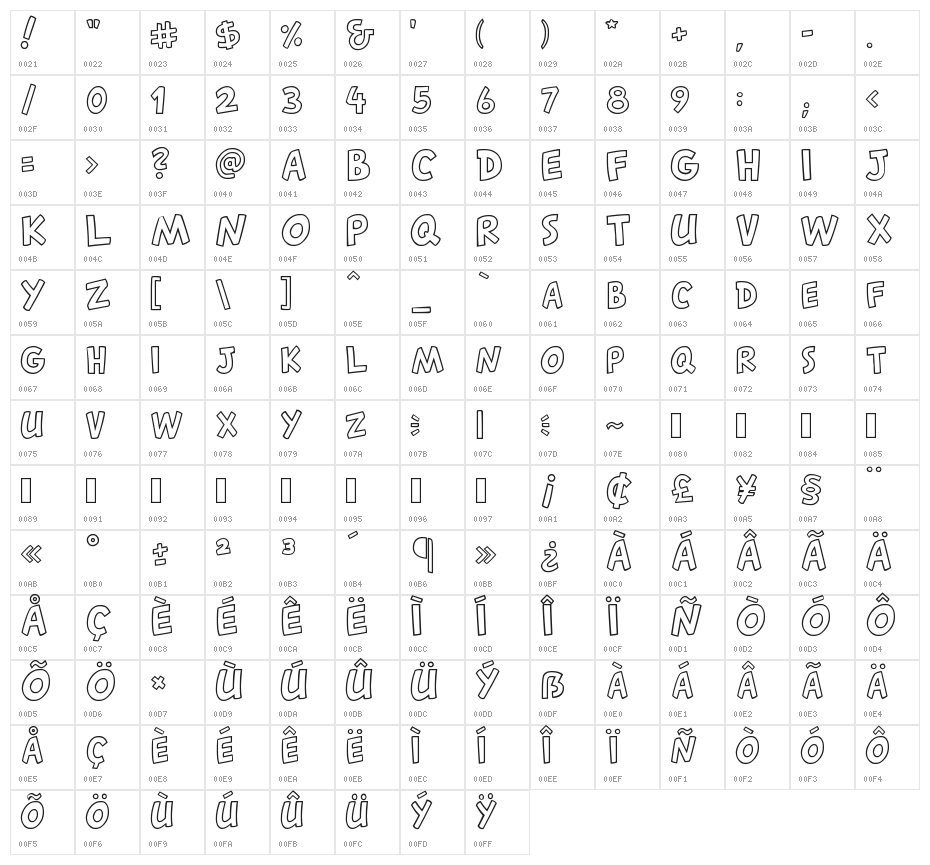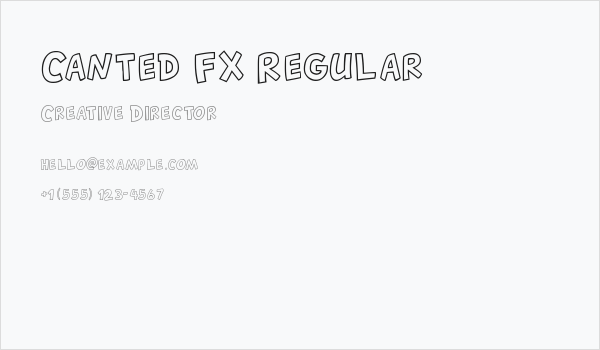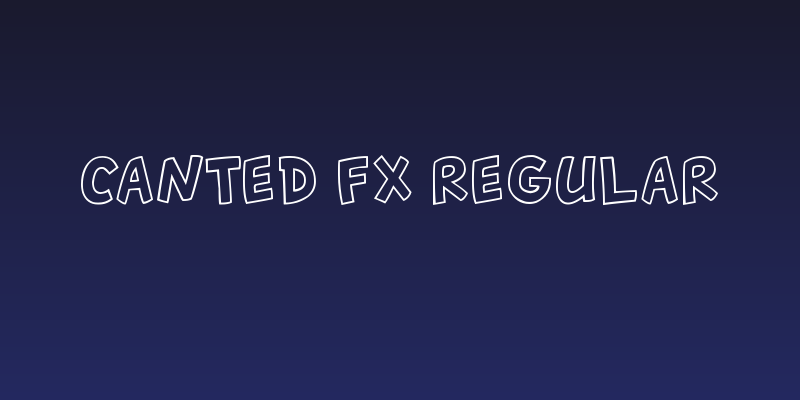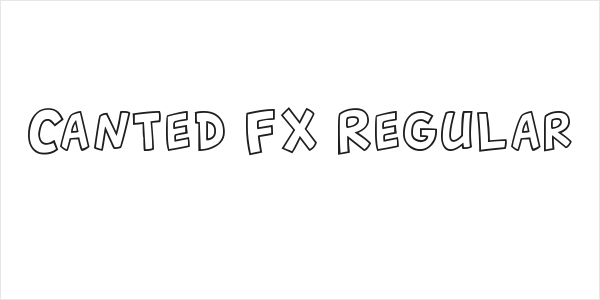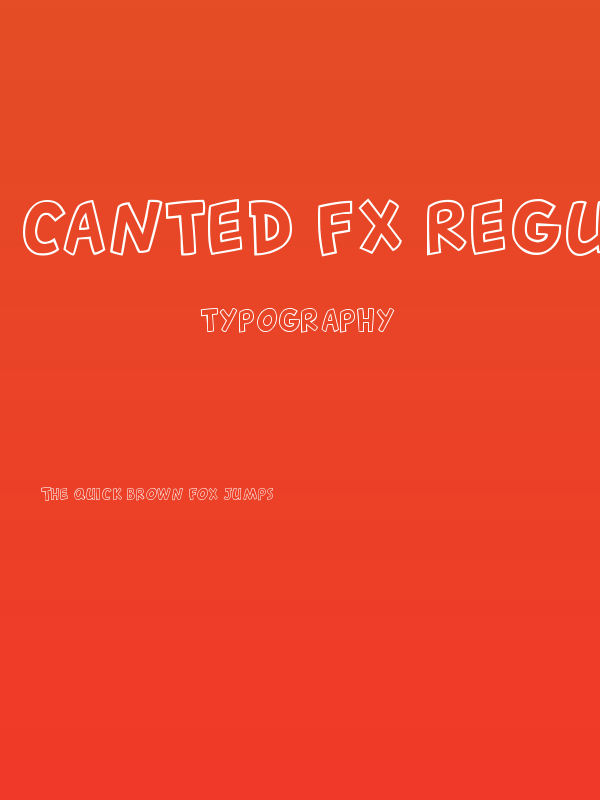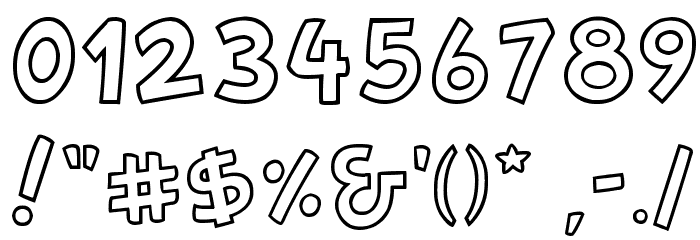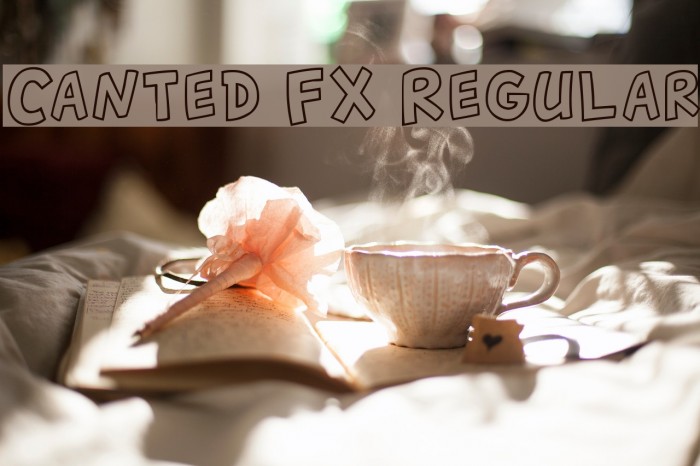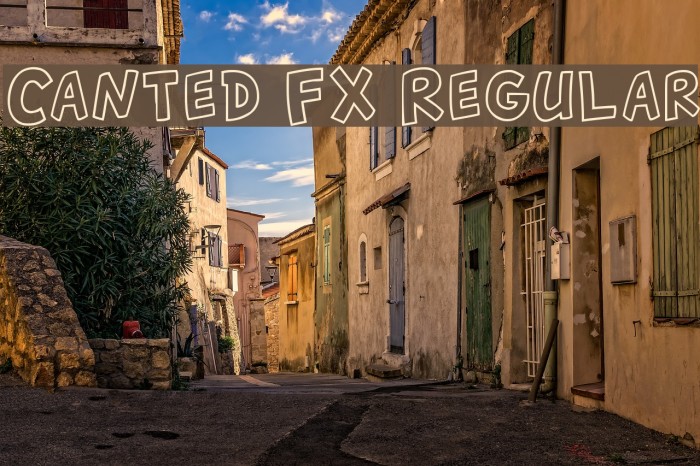
Canted FX Regular Font
Canted FX Regular Description
This font features a playful and bold outline style, characterized by its thick, uniform strokes that create a cartoonish and lively appearance. The letters are slightly tilted, adding a dynamic and energetic feel. The uppercase and lowercase letters maintain consistent proportions, while the numerals and special characters complement the overall aesthetic. The font's design is eye-catching and ideal for projects that require a fun and informal touch.
| Overall Style | Playful, Cartoonish |
| Proposed Projects | Ideal for children's books, comic strips, playful branding, and party invitations. |